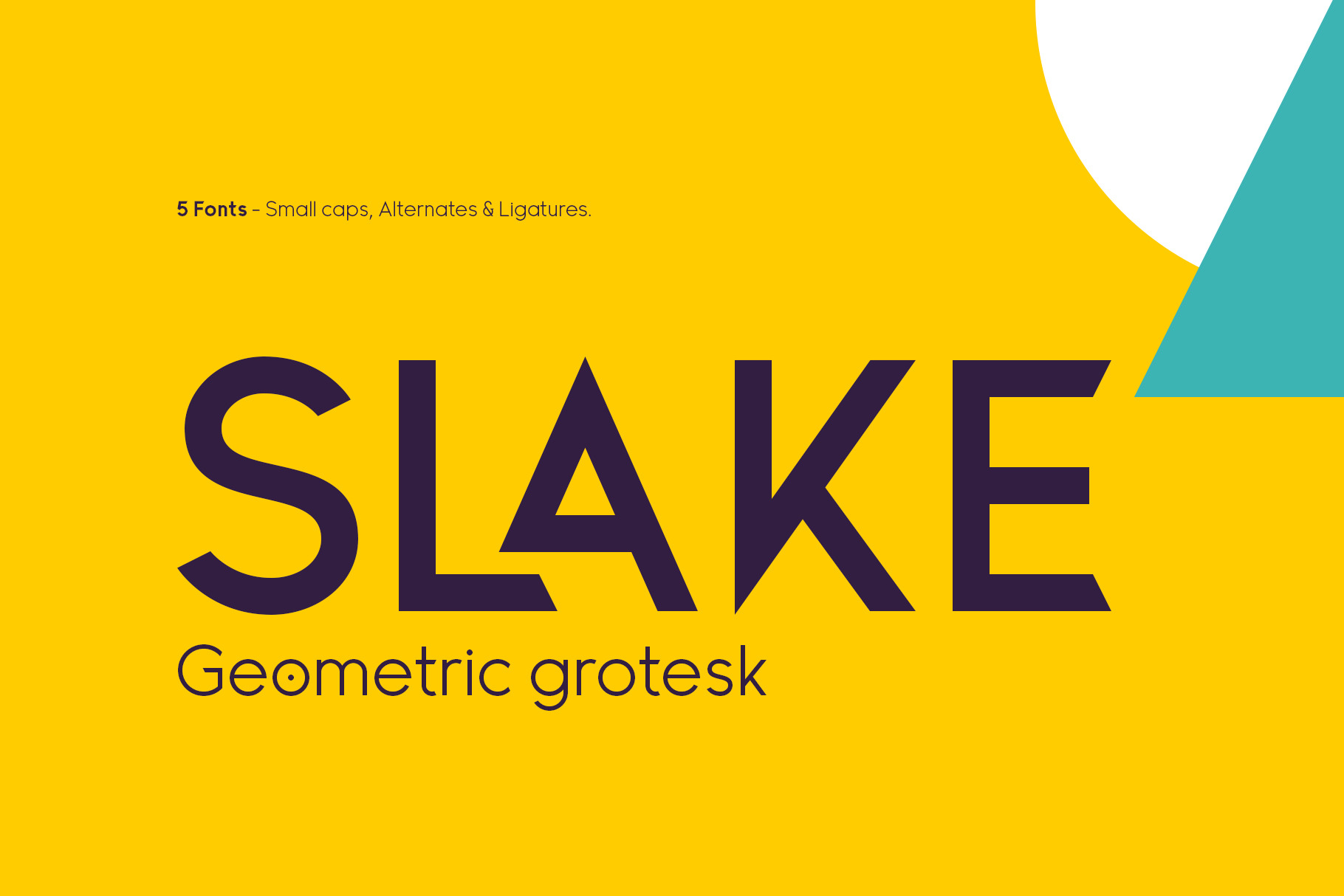
Slake Typeface
Slake Geometric Grotesk
Slake is a modern geometric sans serif consisting of five weights. While the Thin and Black weights are great for display sizes, the Light, Regular and Bold weights are better suited to longer texts.
It supports most Latin Script languages such as English, Spanish, French, German, Portuguese, Italian, Norwegian, Swedish, Irish, Turkish, etc.
Slake comes with a range of OpenType features and it's works perfect for any graphic design challenge — webdesign, packaging, logo design, etc.
- 5 Weights
- OpenType Features
- Small Caps
- Symbols & Punctuation
- Total of 310 Glyphs (per font)